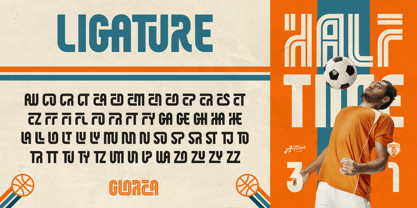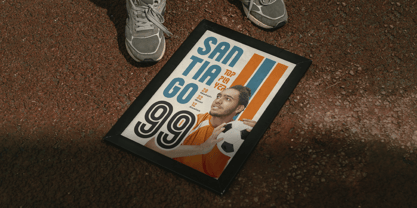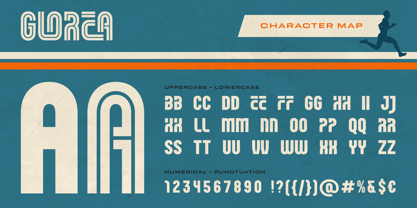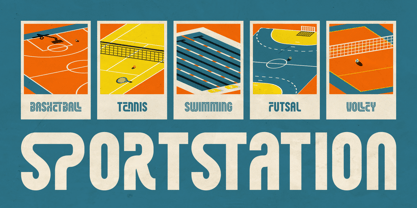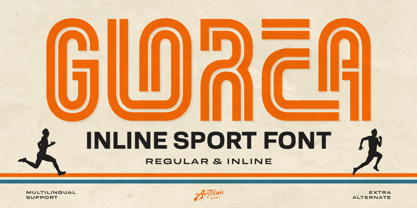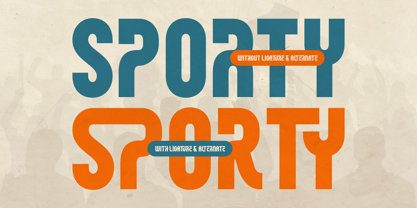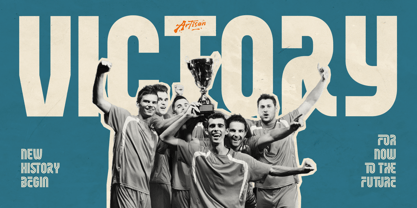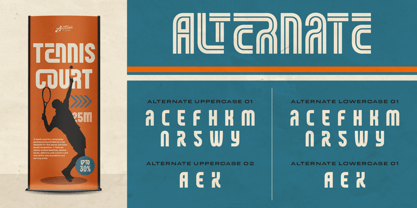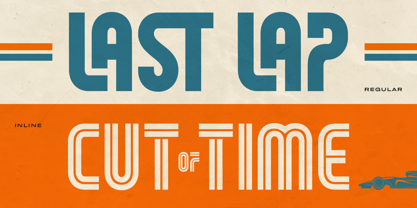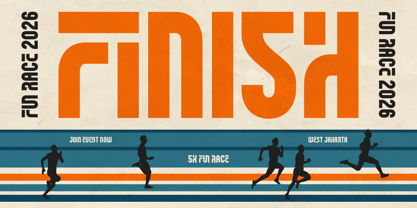
Glorea
by Artisan Themes
The Glorea Font Family was designed by Meidy Meichico and published by Artisan Themes. Glorea contains 2 styles and family package options. More about this family
Glorea is a bold inline display font built with a strong sense of rhythm, balance, and movement. Its rounded geometric structure combined with clean inline cuts creates a sporty yet refined character—confident without being aggressive. The letterforms are solid and wide, making Glorea highly legible at large sizes while still feeling playful and dynamic. The inline detail adds visual depth, giving the font a retro-inspired energy that feels modern and versatile at the same time. Designed to stand out, Glorea works perfectly for sports branding, headlines, posters, logos, packaging, and editorial titles. Whether used in its regular style or inline version, this font delivers impact and personality without overwhelming the layout. Features: A - Z set (Uppercase & Lowercase All Caps), Number, Punctuation, Alternates, Ligatures, Multilingual
Designers: Meidy Meichico
Foundry: Artisan Themes